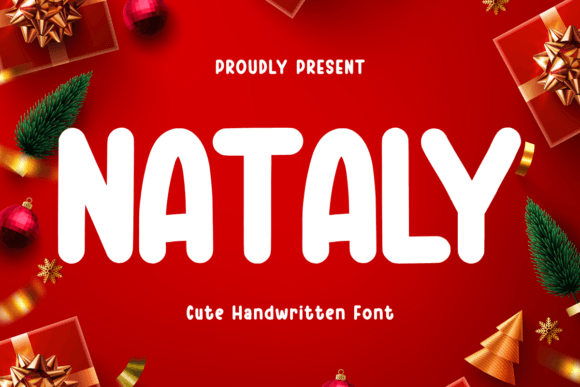
Introducing Nataly Font, the ultimate font to elevate your Christmas designs and spread the holiday cheer! Created by SiapGraph, this festive and cute typeface is the perfect addition to your collection of fonts for printing poetry.
With its cute and fun letters, Nataly Font captures the true spirit of the season and adds a touch of whimsy to any design. Imagine the joy on your loved ones' faces when they receive a holiday card adorned with this unique font. It's like giving them a gift wrapped in letters!
Whether you're creating holiday cards, banners, or other festive creations, Nataly Font will bring your ideas to life with its captivating charm. The playful curves and elegant strokes of this font will make your designs stand out from the crowd, leaving a lasting impression on anyone who sees them.
But Nataly Font is not just about aesthetics; it's also about functionality. This display font is meticulously designed to ensure readability, making it a versatile choice for all your printing needs. Its clear and legible letters guarantee that your poetry will be beautifully showcased, captivating readers and evoking emotions with every word.
But don't just take our word for it; Nataly Font has been highly praised by designers and poets alike. They love how this font effortlessly captures the essence of the holiday season, making it the go-to choice for all their Christmas-themed projects. Its versatility and eye-catching appeal have made it a favorite among professionals and amateurs alike.